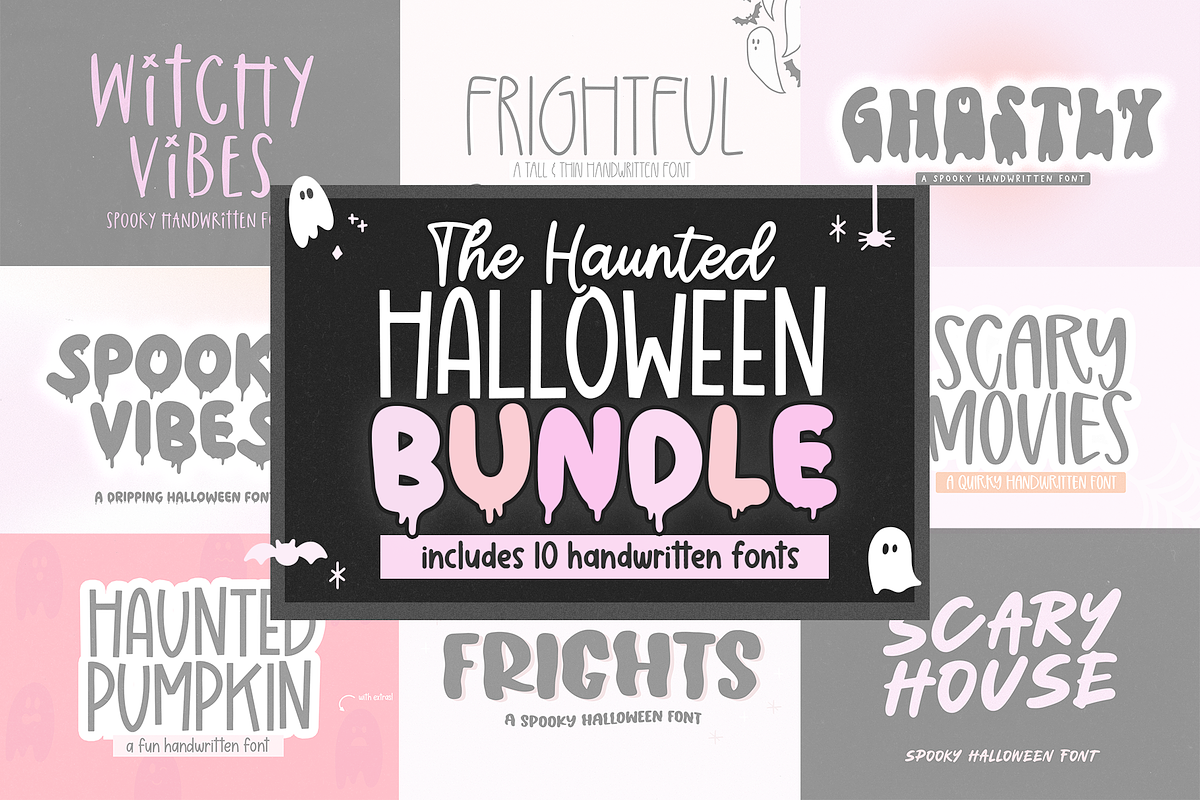
Get your designs ready for fright night with the Halloween Font Bundle | Spooky Fonts Free Download — a chillingly creative collection of typefaces perfect for all things spooky, eerie, and fun! From creepy scripts to bold, haunted display fonts, this bundle is ideal for Halloween party flyers, horror-themed posters, costume shop branding, and festive social media graphics.
Each font in this bundle brings a unique spooky flair, whether it’s dripping letters, ghostly strokes, or vintage monster-movie vibes. With styles ranging from playful to petrifying, you’ll have everything you need to conjure up spine-tingling designs.